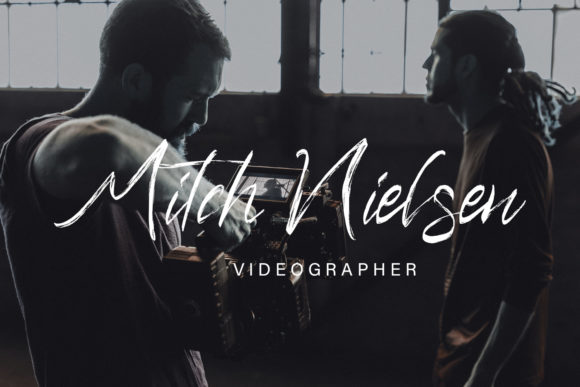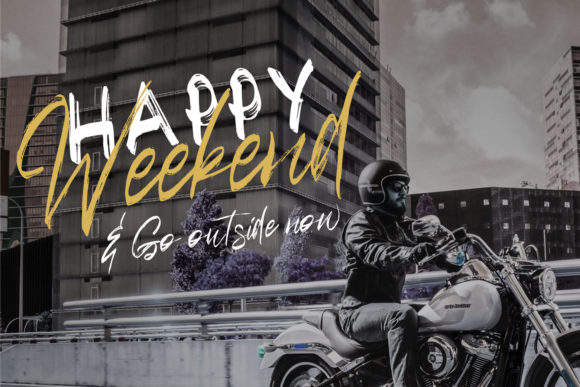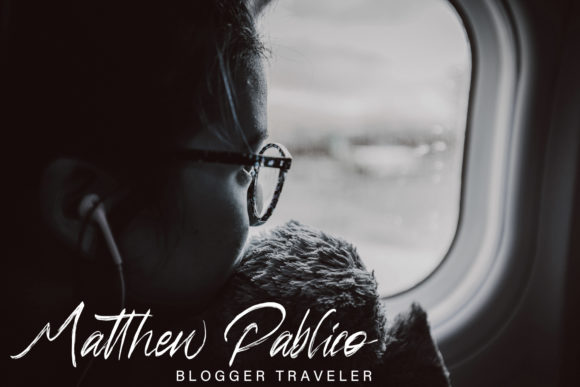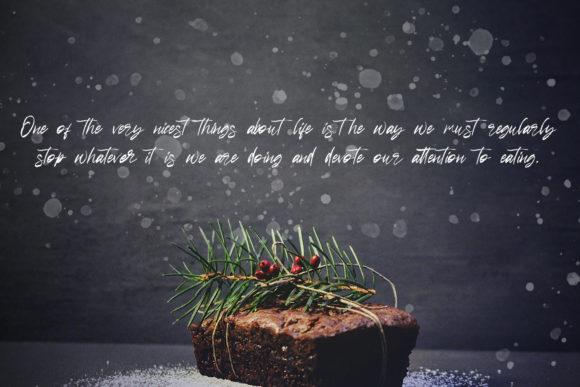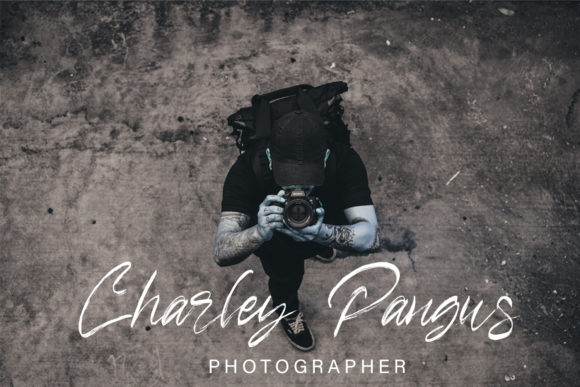
Introduction to Nagasaki Font
Have you ever stared at a blank page, wondering how to convey the perfect message in a creative project? That moment of inspiration is what drives designers to experiment and push boundaries. For those seeking a unique touch, the Nagasaki Font offers a distinctive handwritten character that’s sure to make any design stand out.
As a valuable design resource, the Nagasaki Font is perfect for branding projects, logos, wedding designs, and more. With its high-quality, handwritten feel, it’s no wonder designers are drawn to this versatile font. Whether you’re working on a product packaging design, creating a social media post, or crafting a beautiful invitation, the Nagasaki Font is an excellent choice.
Nagasaki Font
- High-quality font designed for creative projects, perfect for adding a unique touch to your designs.
- Designed to be highly legible, making it perfect for use in body text and headings.
Honest Review: Nagasaki Font
I recently had the opportunity to work with the Nagasaki Font, and I must say it’s been a game-changer for my design projects. As a designer, I’m always on the lookout for high-quality design resources that can elevate my work. The Nagasaki Font is one of those gems that has exceeded my expectations.
- ✨ High-quality design: The font is sleek, modern, and perfectly suited for a wide range of creative projects, from brochures to business cards.
While the Nagasaki Font is an excellent choice for many projects, I do have a few minor complaints.
- ⚠️ Limited language support: As a multilingual designer, I wish the font supported more languages, but it’s not a deal-breaker.
- ⚠️ Not suitable for very small text: I found that the font can become slightly pixelated when used at very small sizes, but this is a minor issue.
Overall, I’m thoroughly impressed with the Nagasaki Font and would highly recommend it to any designer looking for a high-quality, free design resource. Its versatility, modern design, and transparent background make it an excellent choice for a wide range of creative projects.
Nagasaki Font
The Nagasaki Font is ideal for various creative projects, including:
- Print and digital marketing materials